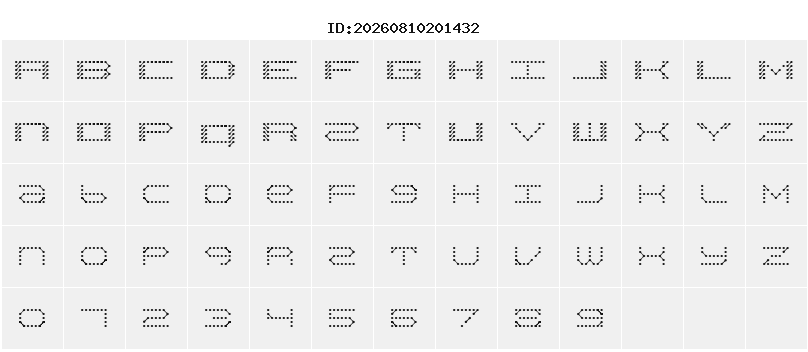
QZ Teletype II Preview
• Font Name: QZ Teletype II
• Full Font Name: QZ Teletype II
• Version: Version 1.00 November 30, 2011, initial release
About QZ Teletype II.ttf
QZ Teletype II.ttf is a modern, elegant sans-serif font designed for ultimate readability and visual harmony. Perfect for branding, headlines, web design, and print materials.